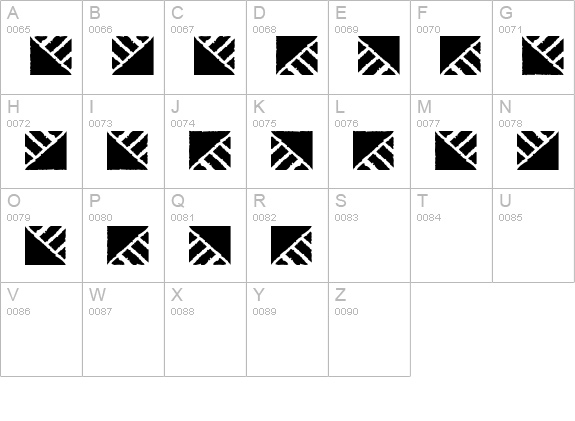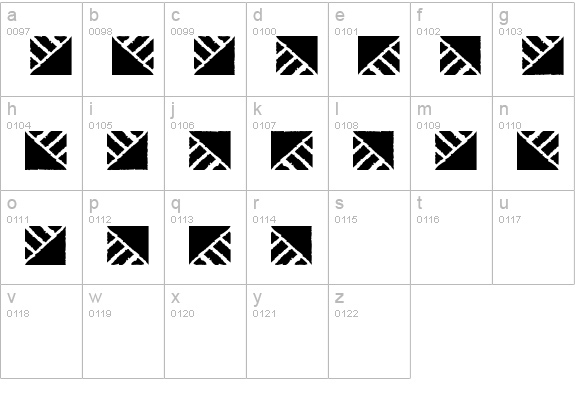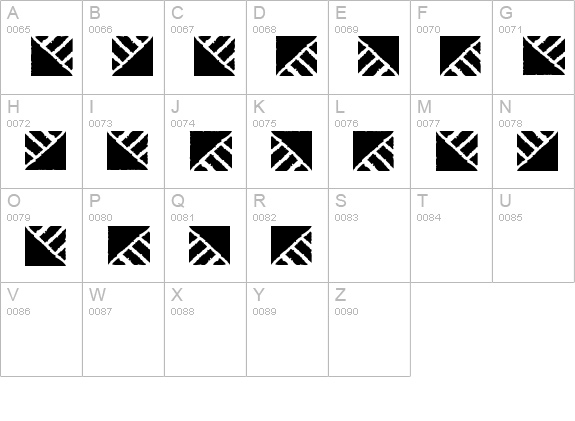
Stoned-MosaicOne font is a unique and artistic typeface that combines the rugged texture of stones with the intricate beauty of mosaics. Each character in this font is crafted with attention to detail, creating a visually stunning and eye-catching design. The rough edges and irregular shapes give Stoned-MosaicOne a distinct and edgy look that is perfect for adding a touch of creativity to your projects. What makes Stoned-MosaicOne font even more appealing is that it is available for free download at FontsMarket.com. This means you can easily access this one-of-a-kind font and use it in your designs without any cost. Whether you're working on a personal project or a professional assignment, Stoned-MosaicOne font is a versatile choice that will surely make a statement. Download it today and elevate your designs with its unique and captivating style.